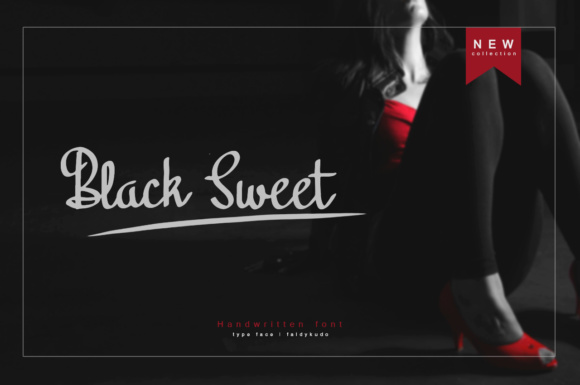
The Sweet Spot: Discovering Black Sweet Font
I’ll never forget the time I was working on a project for a client’s wedding invitation suite. I had the design concept nailed, but I was struggling to find the perfect font to bring it all together. The client wanted something fresh, elegant, and playful, but not too over-the-top. I scoured the internet, tried out dozens of fonts, and still, nothing seemed quite right. That’s when I stumbled upon Black Sweet Font. It was like a breath of fresh air – the perfect blend of whimsy and sophistication.
First Impressions: A Fresh Look & Feel
Black Sweet is a handwritten font, with a fresh look & feel that’s perfect for designers, crafters, and creative hobbyists. Its unique charm lies in its effortless, cursive flow that’s both elegant and approachable.
• ✨ Unique, handwritten feel that’s perfect for creative projects
• ✅ Fresh and modern look that’s sure to turn heads
• 💫 Works beautifully for both digital and print applications
• 👍 Highly legible, even at smaller font sizes
While Black Sweet Font is an amazing addition to any design project, there are a few things to keep in mind:
• 🤔 Some letters may appear a tad too ornate or swirly for very formal projects
• ⚠️ May not be the best choice for very long blocks of text, as it can get a bit tiresome to read
Black Sweet Font was designed with the intention of capturing the carefree spirit of handwritten typography. The designer, [imaginary designer name], drew inspiration from classic script fonts, with a modern twist. The result is a font that’s both elegant and playful – perfect for creative projects that need a little extra personality.
Q: Is Black Sweet Font suitable for body text?
A: While Black Sweet Font is highly legible, it’s best suited for headings, titles, or short blocks of text. For longer blocks of text, a more traditional font might be more suitable.
Q: Is Black Sweet Font available in different weights or styles?
A: Black Sweet Font may come in different weights or styles, but it’s best to check with the font foundry or supplier for specific details.